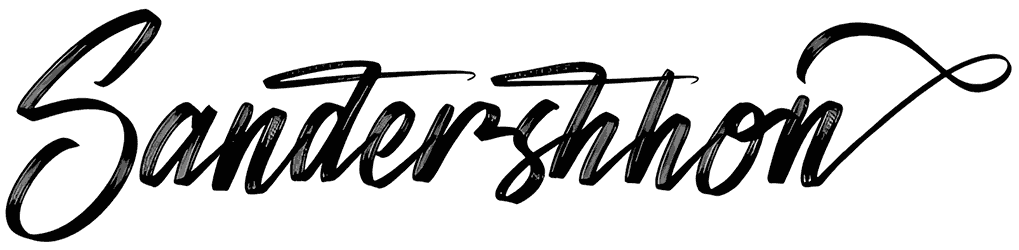
Sandershon Font
Sandershon is a stunning brush script font that has an italic style to its modern design! It offers bold, hand-drawn brush letterings that add a natural artistic feel to your typography with a friendly look.
If you are interested in having a typography that is stylish with a paintbrush design, then Sandershon is the best font for you! You can include it in greeting cards, invitations, flyers, posters, and branding.